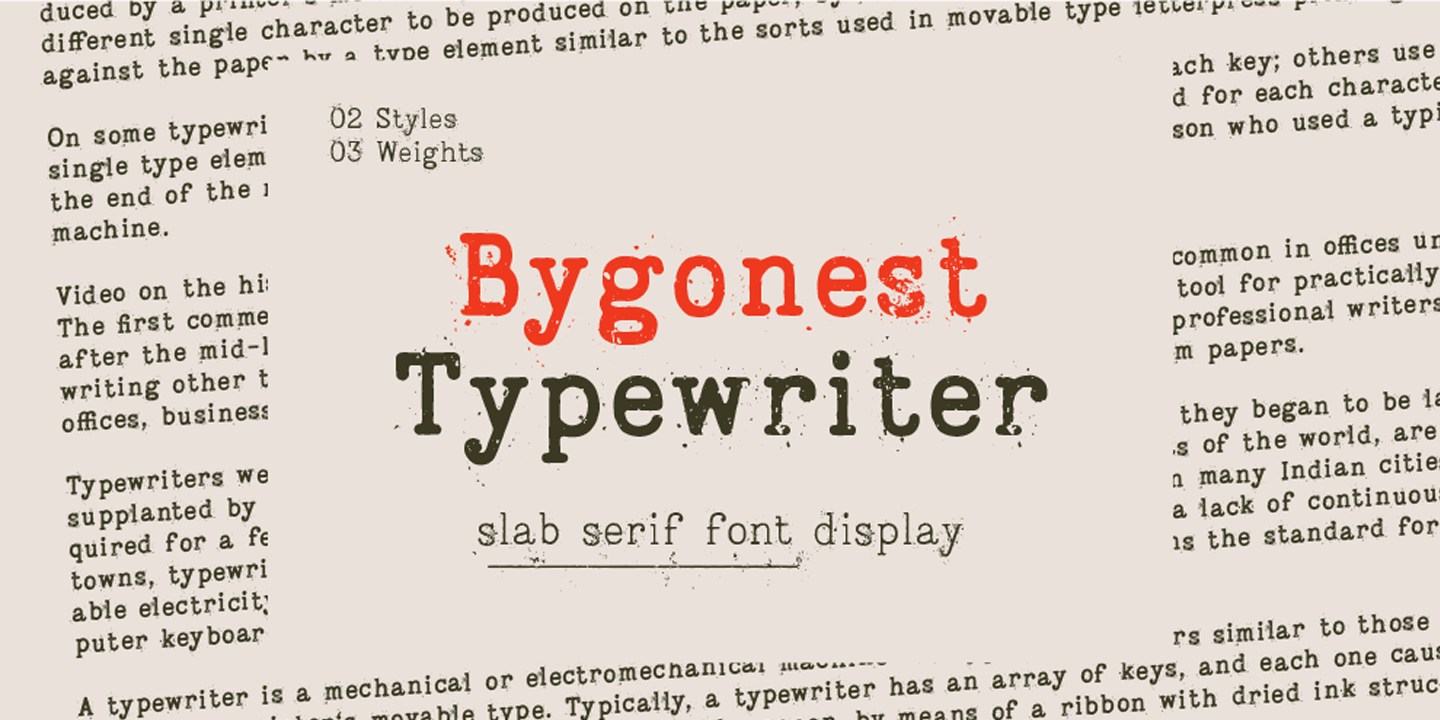
The Bygonest Font Free Download is a delightfully nostalgic and charming typeface, making it an excellent choice for designs that aim to evoke a sense of vintage warmth, handcrafted authenticity, and a touch of wistful remembrance. This inviting font is perfectly suited for retro branding, artisanal product labels, boutique cafe menus, vintage-inspired posters, personal blogs with a rustic theme, and handmade craft fair promotions. Imagine it gracing the logo of a quaint antique shop, providing the friendly typography for a small-batch bakery, or lending a timeless, comforting feel to a family recipe book cover. Its unique forms and evocative texture ensure your message is delivered with genuine character and an undeniable sense of heartfelt charm.
What makes Bygonest Font truly exciting is its ability to instantly transport viewers to a simpler, more cherished time. It's not just a decorative font; it embodies a raw, unpretentious elegance and a distinct personality that makes it incredibly compelling. The subtle irregularities, often with a slight aged or textured effect, give it an authentic, hand-drawn quality that feels personal and approachable. Designers will appreciate how it immediately adds a warm, nostalgic quality to any project, making it ideal for designs that need to convey heritage, sincerity, and a truly inviting atmosphere.
The Bygonest Font family typically focuses on its singular, expressive style, as its strength lies in its inherent vintage and handcrafted appeal. While primarily a display or headline font due to its distinctive nature, you might find a Regular option, with its character providing the main visual impact rather than a broad range of weights. Some versions might offer unique ligatures, alternative characters, or subtle textural variations that enhance its authentic, aged appearance. These focused design features ensure that the Bygonest Font Free Download provides ample creative opportunities to craft truly unique, charming, and visually captivating designs that resonate with a beloved sense of the past.